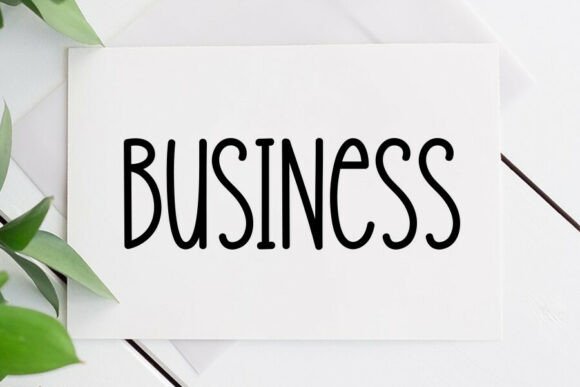
Basket Font: The Perfect Handwritten Font for Your Creative Projects
Basket font is a unique and charming handwritten font that has gained popularity among designers and artists. Its tall, playful, and casual feel makes it an ideal choice for a wide range of creative projects, from Father’s Day designs to greeting cards, t-shirts, posters, and more. In this article, we will explore the features and benefits of the Basket font, and how it can elevate your designs to the next level.
Key Features of Basket Font
- Tall and Playful: Basket font is characterized by its tall and playful appearance, making it perfect for designs that require a sense of fun and personality.
- Clean Handwritten Style: The font combines a clean handwritten style with a touch of charm, making it ideal for personal and emotional projects.
- Slim and Elongated Characters: The slim and elongated characters of Basket font bring a sense of warmth and personality to your designs.
- Casual and Heartfelt Feel: The font has a casual and heartfelt feel, making it perfect for designs that require a personal touch.
Creative Ways to Use Basket Font
Basket font is a versatile font that can be used for a wide range of creative projects. Here are some ideas to get you started:
- Father’s Day Designs: Create personalized Father’s Day cards, posters, and t-shirts with Basket font.
- Greeting Cards: Use Basket font to create heartfelt and personalized greeting cards for special occasions.
- T-Shirts and Apparel: Add a touch of personality to your t-shirts and apparel designs with Basket font.
- Posters and Flyers: Create eye-catching posters and flyers with Basket font for your events, promotions, or services.
- Social Media Graphics: Use Basket font to create engaging social media graphics, such as quotes, inspirational messages, or announcements.
Benefits of Using Basket Font
Basket font offers several benefits that make it an ideal choice for designers and artists. Here are some of the benefits:
- Unique and Eye-Catching: Basket font is a unique and eye-catching font that can help your designs stand out from the crowd.
- Emotional Connection: The font’s casual and heartfelt feel can help create an emotional connection with your audience.
- Versatile: Basket font is a versatile font that can be used for a wide range of creative projects.
- Easy to Read: The font is easy to read, making it perfect for designs that require a clear and concise message.
Tips and Tricks for Using Basket Font
Here are some tips and tricks to help you get the most out of Basket font:
- Use it with Images: Combine Basket font with images or illustrations to create visually appealing designs.
- Experiment with Colors: Experiment with different colors to find the perfect combination that matches your brand or design.
- Keep it Simple: Keep your design simple and clean to ensure that the font stands out.
- Pair it with Other Fonts: Pair Basket font with other fonts to create a unique and interesting contrast.
Basket font is a charming and versatile handwritten font that can elevate your designs to the next level. Its tall, playful, and casual feel makes it perfect for a wide range of creative projects, from Father’s Day designs to greeting cards, t-shirts, posters, and more. With its slim and elongated characters, clean handwritten style, and heartfelt feel, Basket font is an ideal choice for designers and artists who want to add a touch of personality to their designs.